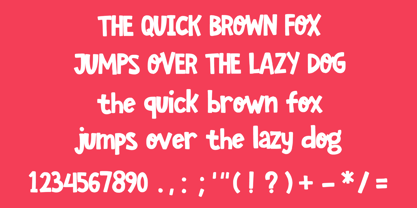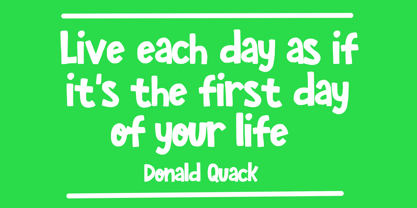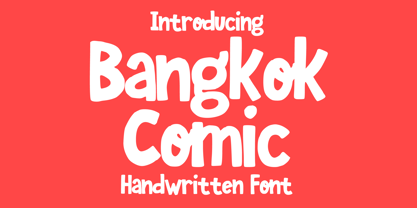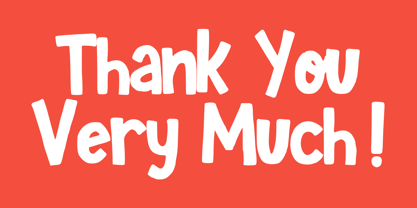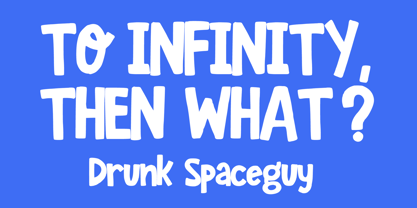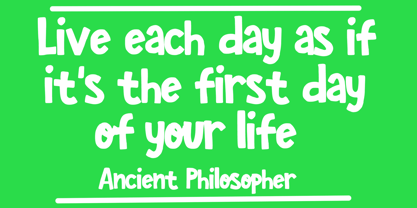
Bangkok Comic
by Mvmet
The Bangkok Comic Font Family was designed by Gabriel Valentinus and published by Mvmet. Bangkok Comic contains 1 styles.
Introducing Bangkok Comic – a playful, robust cartoon font designed to breathe life into every project it touches! Whether you're designing adorable clothing and t-shirt patterns, crafting vivid kids’ books, hosting spirited events for children, or developing eye-catching greeting cards, it’s your go-to choice. Ideal too for stickers, movie posters, and soaring banners, it'll add a bold, fun twist to virtually any design you dream up. With Bangkok Comic, experience the thrill of crafting fabulous designs and immerse yourself in an atmosphere of joy and cheer. Unleash your creativity and let it sing in the most vibrant, fun-filled notes!
Designers: Gabriel Valentinus
Publisher: Mvmet
Foundry: Mvmet
Design Owner: Mvmet